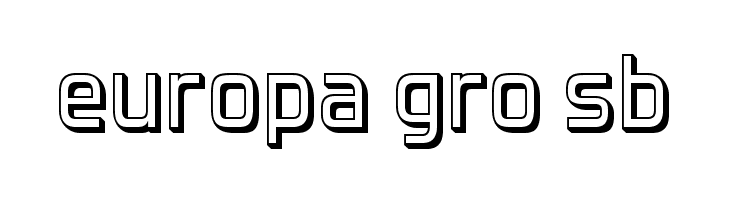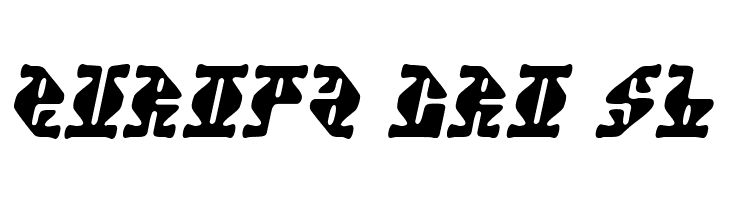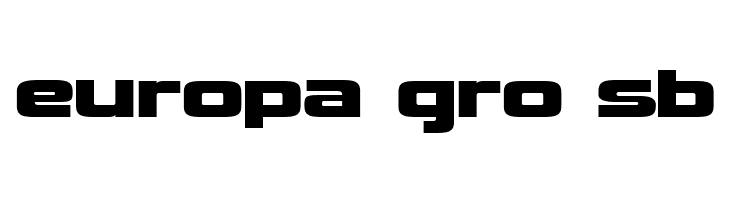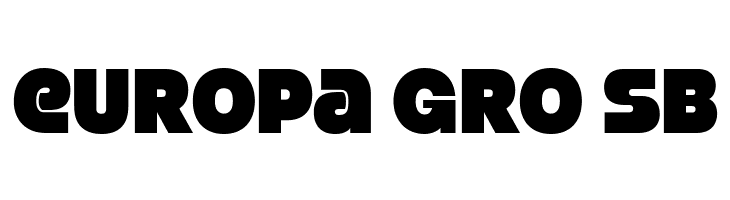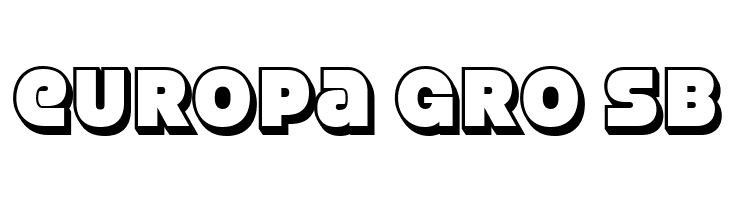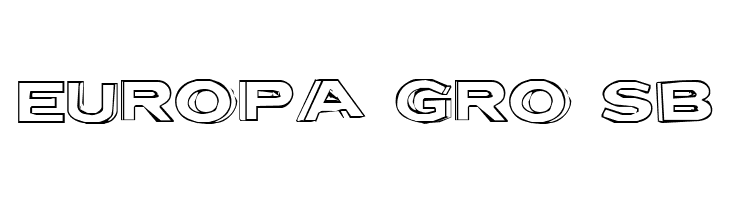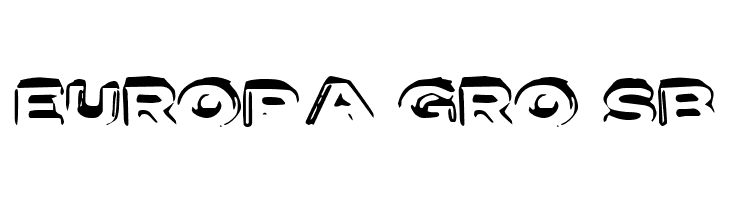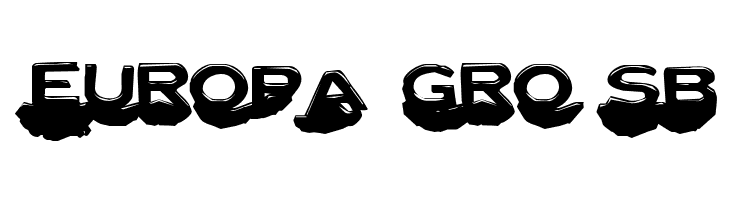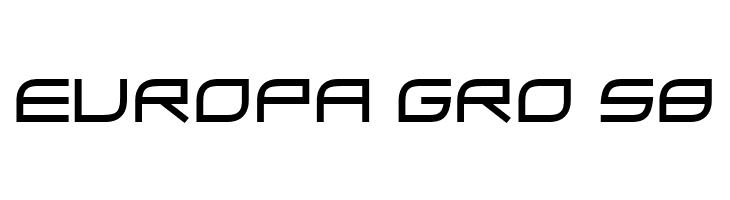
A futuristic, geometric font with a shadow effect for a three-dimensional look.
A bold, decorative font with sharp angles and thick strokes.
A bold, geometric font ideal for impactful headlines and modern designs.
A bold, geometric font with thick, uniform strokes and a modern aesthetic.
A bold, three-dimensional font with a striking, shadowed design.
A bold, three-dimensional font with a geometric, block-like appearance.
A bold, stencil-like font with a modern, industrial feel.
A bold, 3D shadowed font with a playful, decorative style.
A futuristic, geometric font with angular and sleek letterforms.